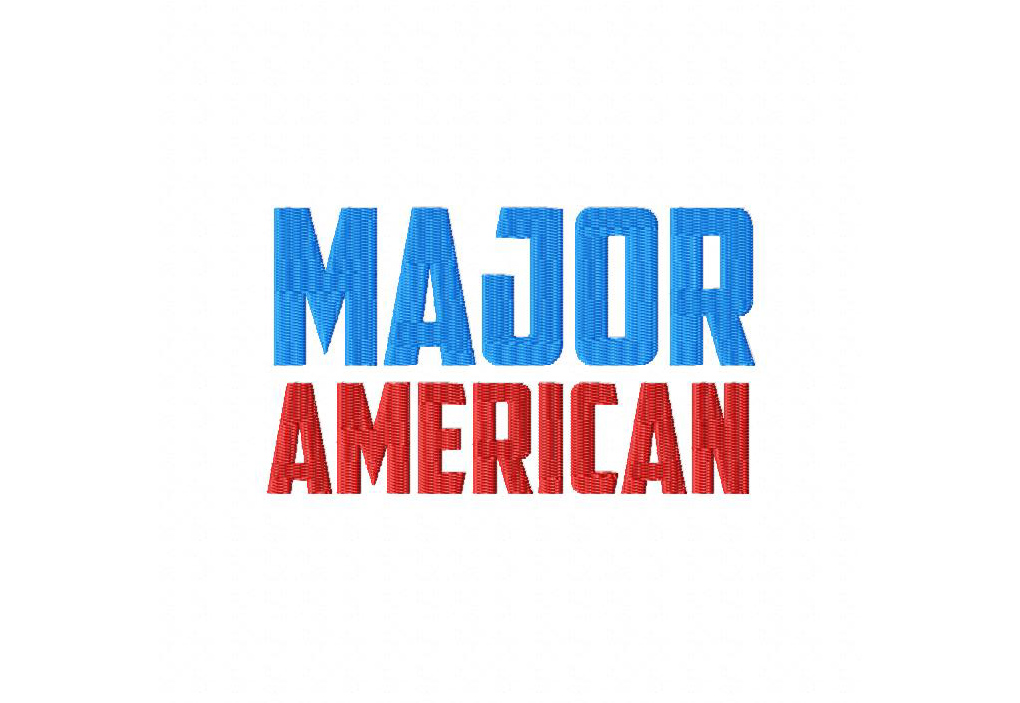
Cause Major excitement with this mighty heroic machine embroidery font set. Download it for Gold Members only.
The Major American Font includes Uppercase, Numbers and Punctuation in 1" 2" & 3" Sizes